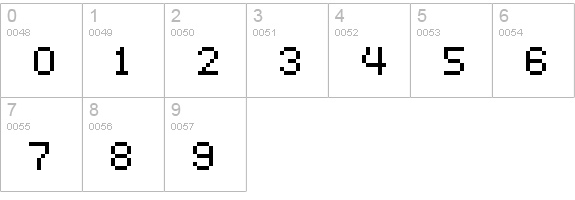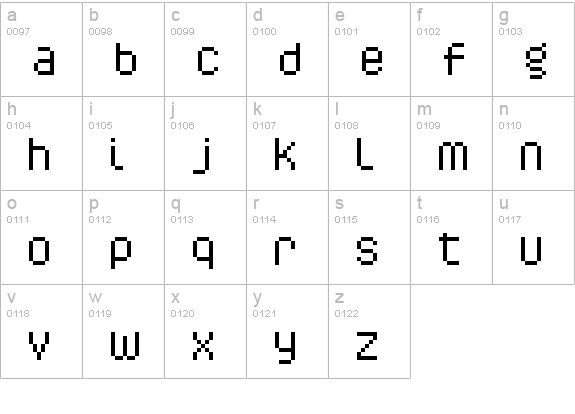
Caliper Alternate font is a modern and sleek typeface that exudes sophistication and versatility. With its clean lines and distinctive letterforms, this font is perfect for a wide range of design projects, from branding to editorial design. The alternate version of Caliper adds a unique twist to your typography, making your text stand out with its subtle yet impactful variations. What's even better is that Caliper Alternate font is available for free download at FontsMarket.com. This means you can easily access this stylish and professional font to elevate your designs without any cost. Whether you're working on a digital project or a print layout, Caliper Alternate font is a great choice to add a touch of elegance and modernity. Download it today and enhance your typography game with this fantastic free font!